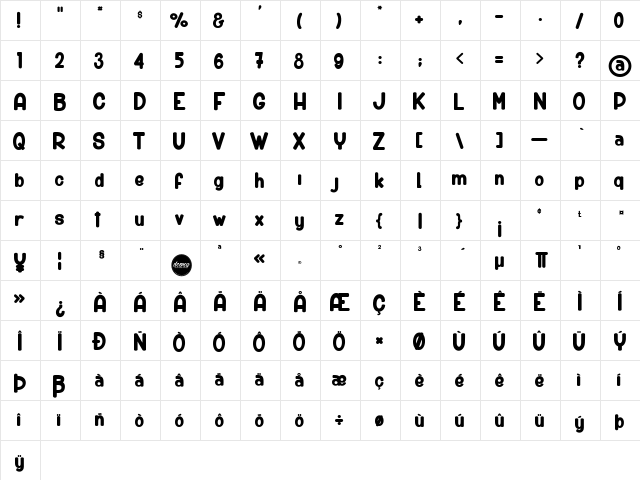
BIG CAR Short Gun Regular
Design Context for BIG CAR Short Gun Typeface
BIG CAR Short Gun takes a measured approach to typography — its balanced proportions and neutral character make it a reliable workhorse for both digital and print work.